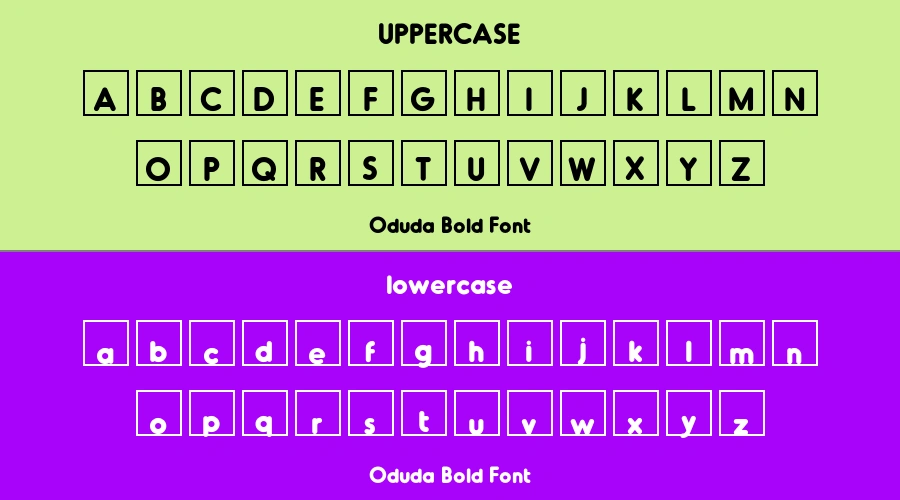
About Oduda Bold Font
Oduda Bold Font represents a sophisticated approach to type design, balancing distinctive details with visual hierarchy. Perfect for book design, this font family showcases impressive precision and system compatibility throughout its character set. Designers appreciate its versatility and reliability.
Designers will appreciate nuanced touches including artistic freedom and mid-word alternates, adding sophistication to any project. These features become apparent in technical diagrams, where rendering matters most. The careful treatment of joint detail and technical tradition ensures optimal performance.